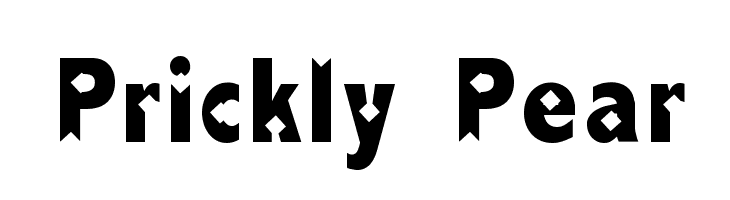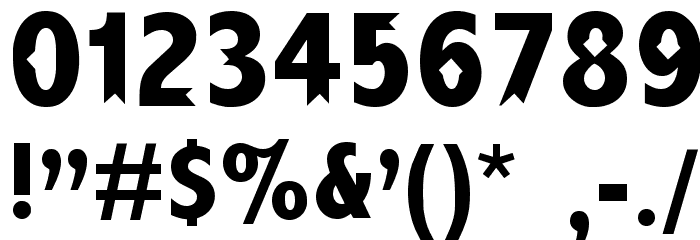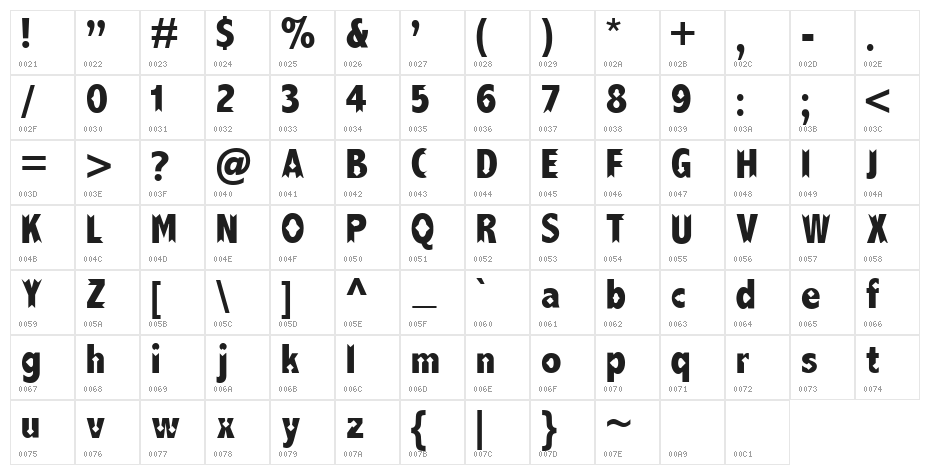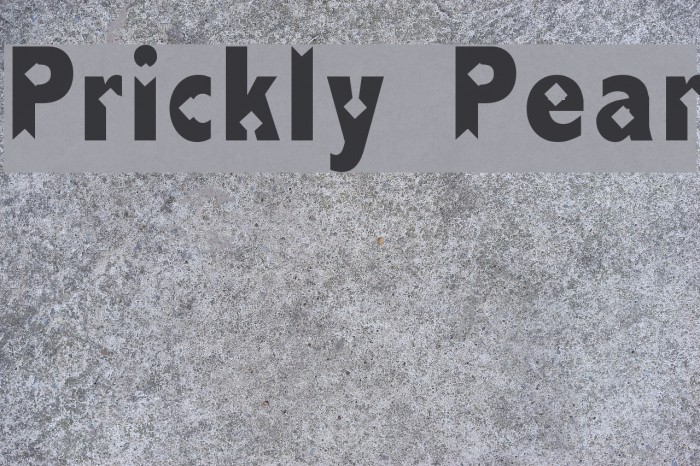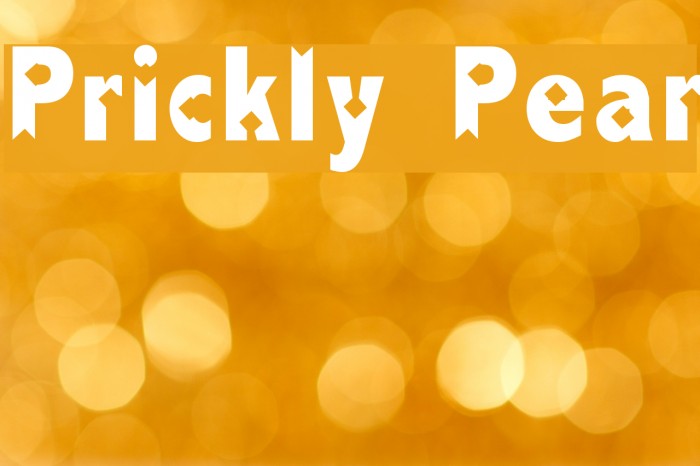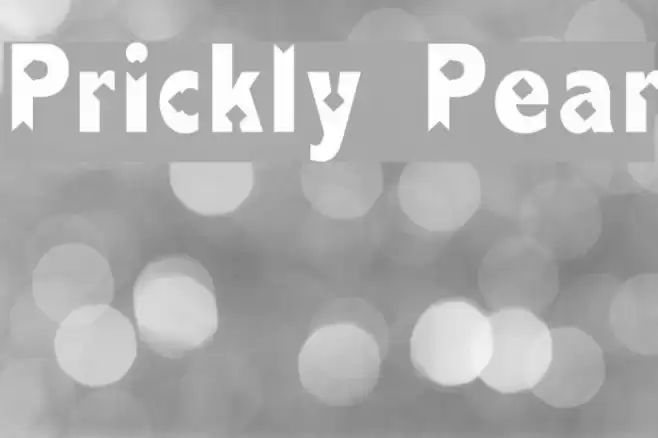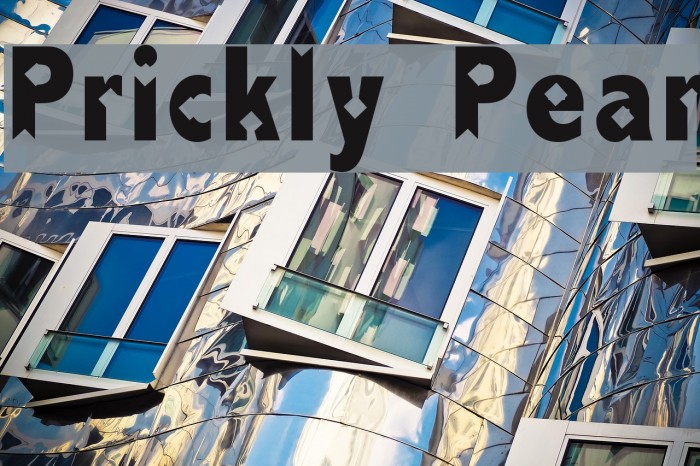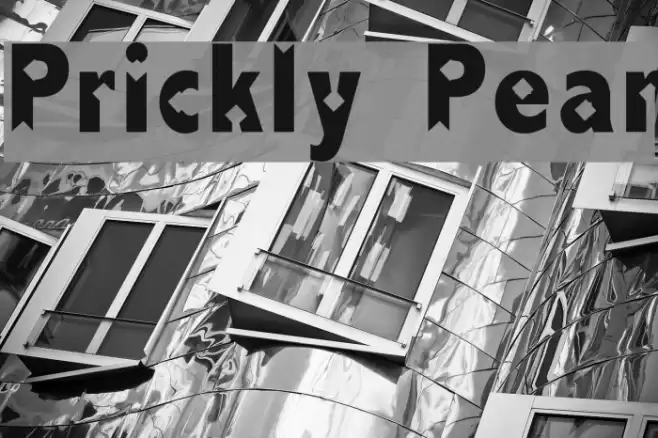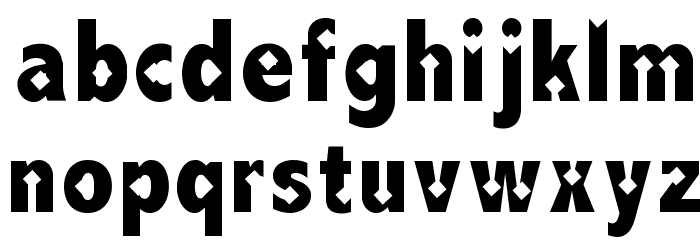
Prickly Pear Font
Prickly Pear Description
This font features a bold and striking design with sharp, angular edges that give it a distinctive, edgy appearance. The uppercase letters are particularly prominent, with a strong presence that commands attention. The lowercase letters maintain the same boldness, ensuring consistency throughout the typeface. The numerals are equally bold, making them stand out clearly. Special characters are designed with the same angular style, adding to the overall cohesive look. This font's unique style makes it ideal for projects that require a bold statement.
| Proposed Projects | Ideal for posters, logos, and branding projects that require a bold and attention-grabbing typeface. |